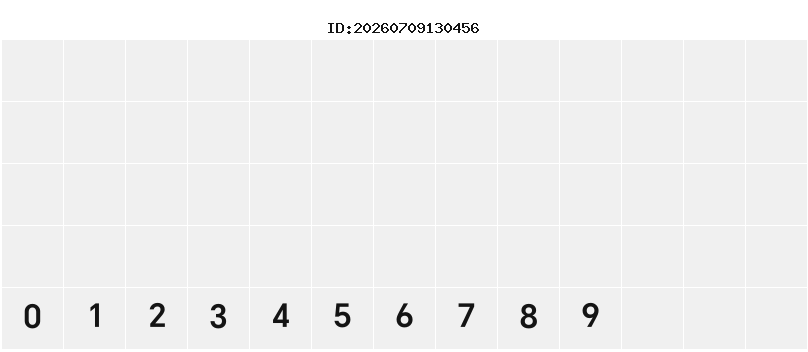
HONOR Sans Arabic UI DB Preview
• Font Name: HONOR Sans Arabic UI DB
• Font ID: Founder:HONOR Sans Arabic UI_DB
• Full Font Name: HONOR Sans Arabic UI DB
• Version: Version 1.04
• PostScript Name: HONORSansArabicUI-DB
• Character Count: 586
• Designer: 北京北大方正电子有限公司
• Manufacturer: 北京北大方正电子有限公司
About HONOR Sans Arabic UI DB.ttf
HONOR Sans Arabic UI DB.ttf is a modern, elegant sans-serif font designed for ultimate readability and visual harmony. Perfect for branding, headlines, web design, and print materials.